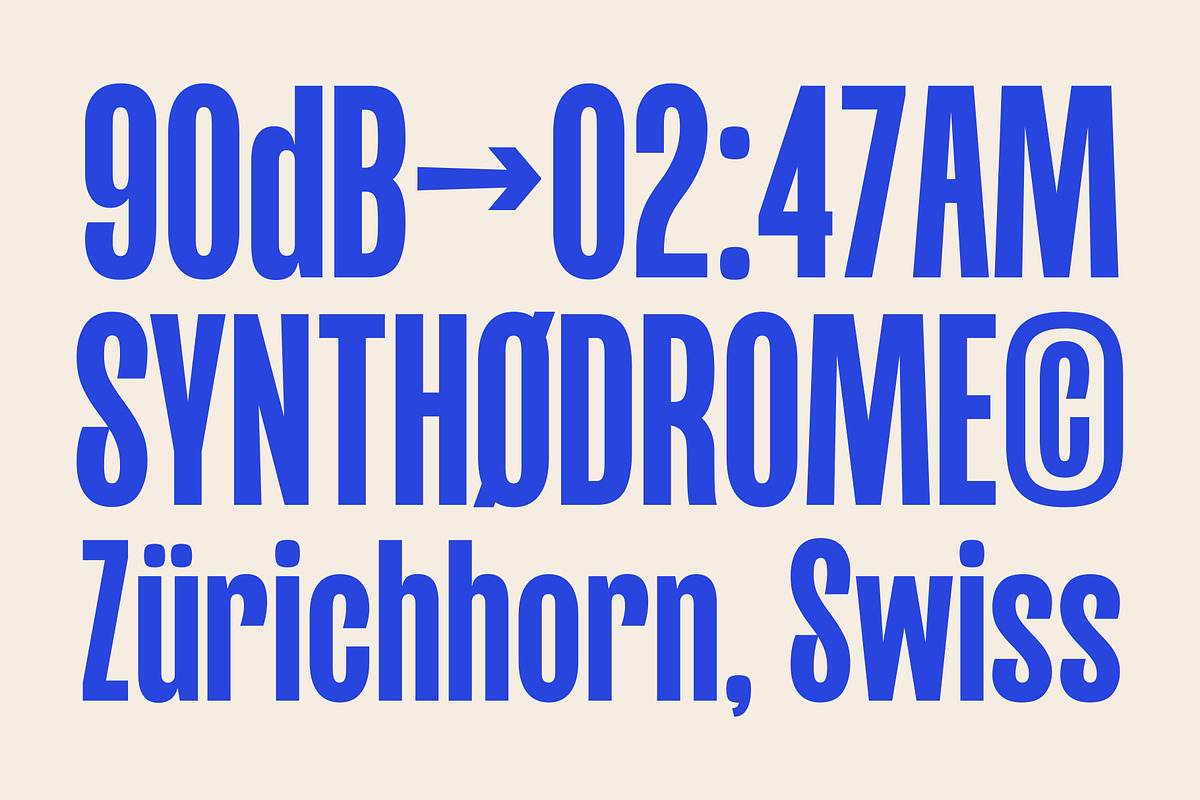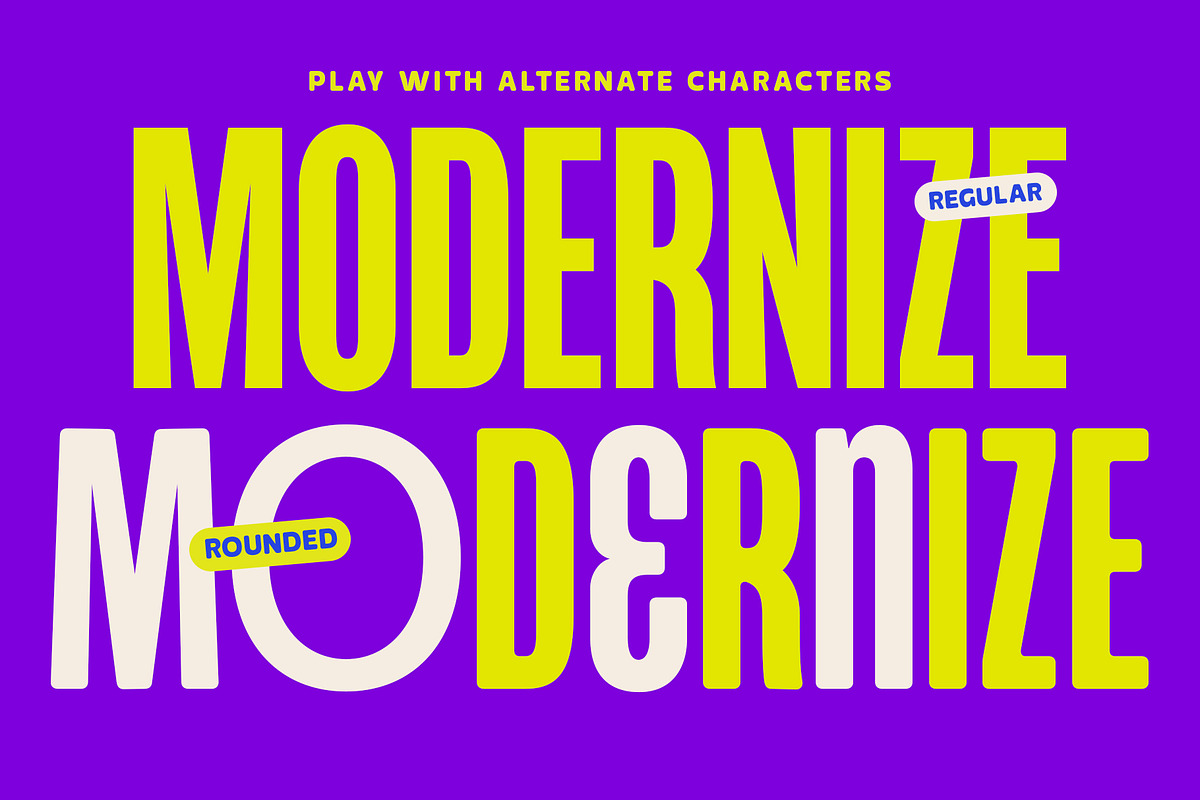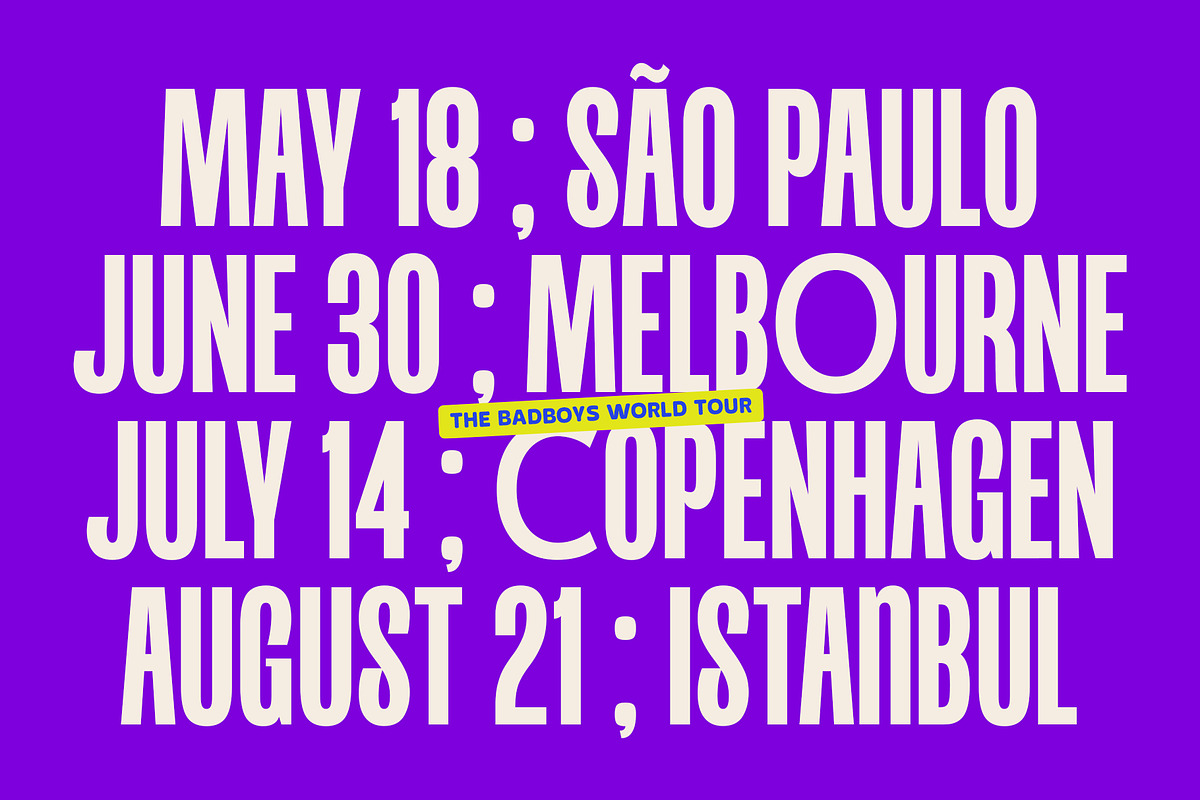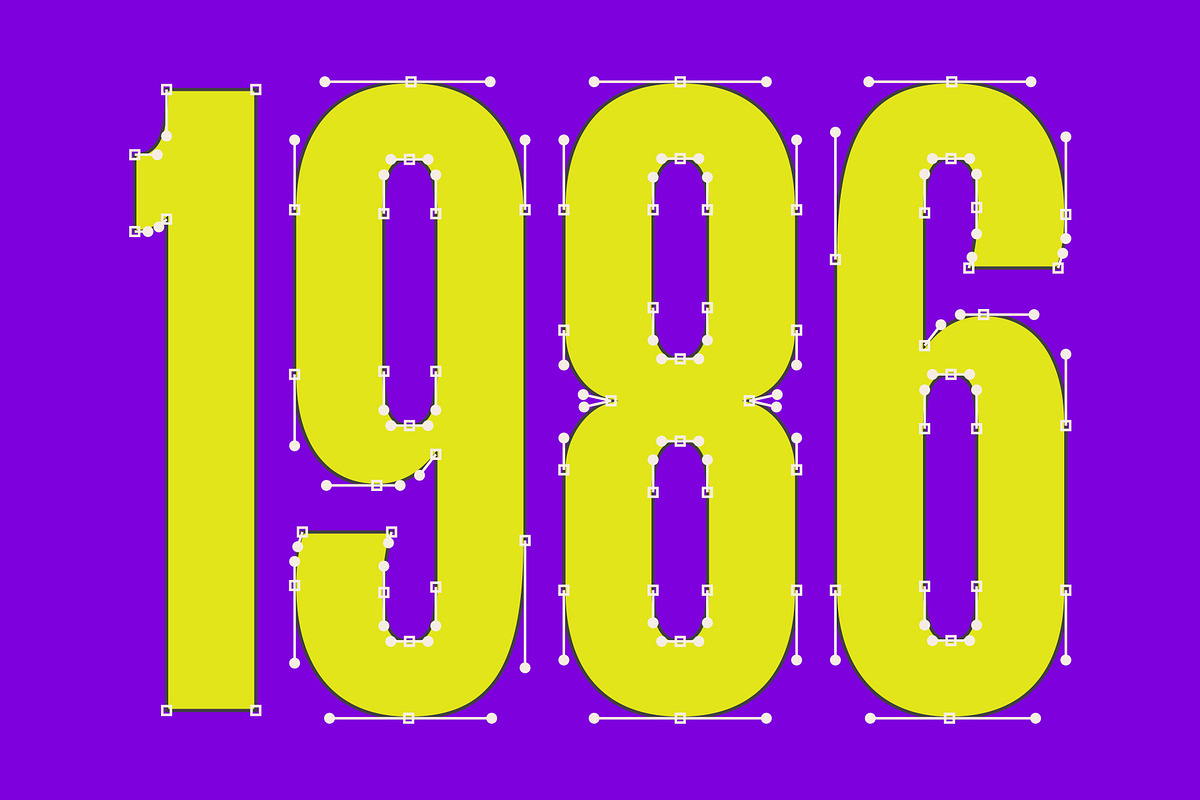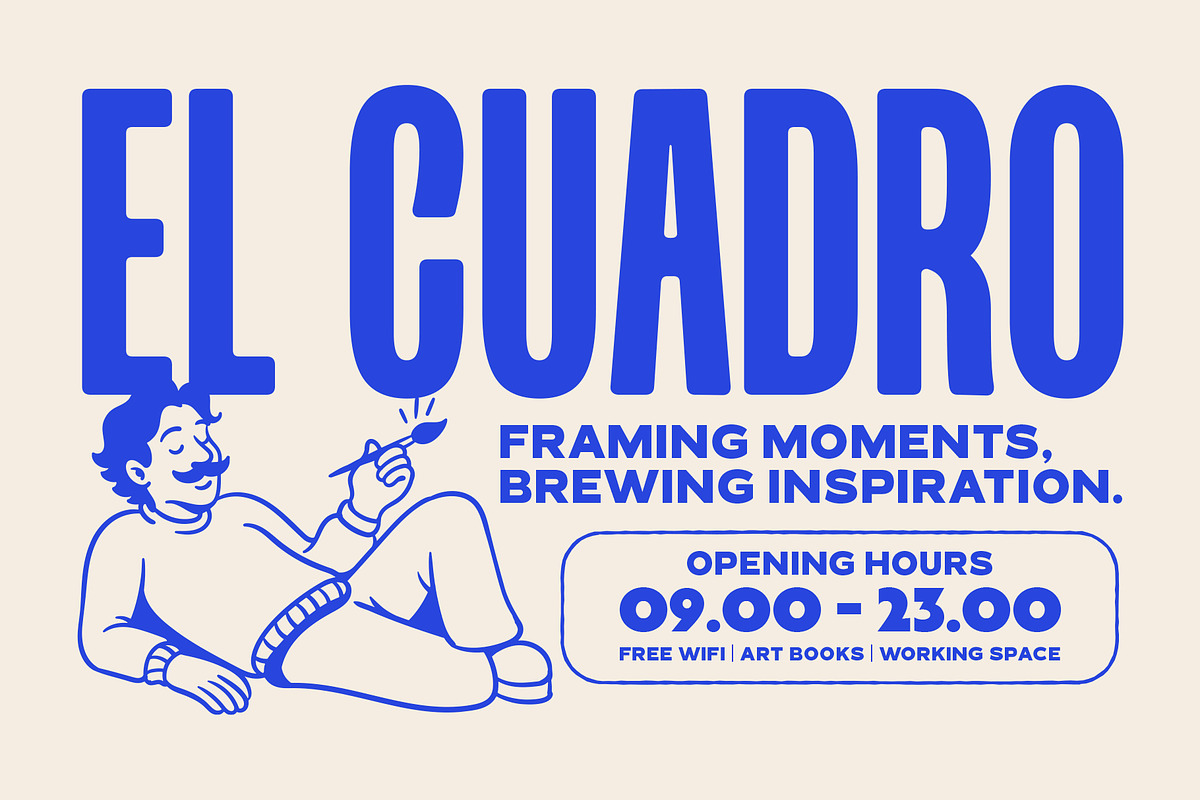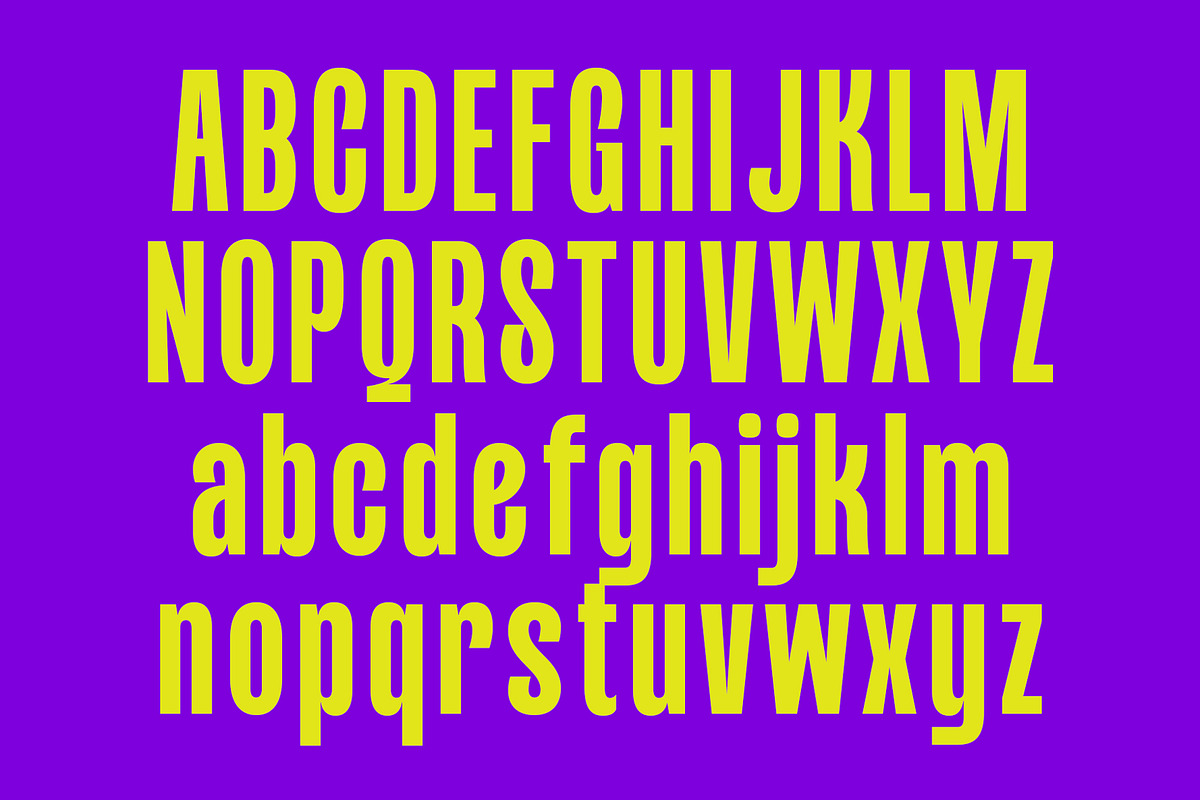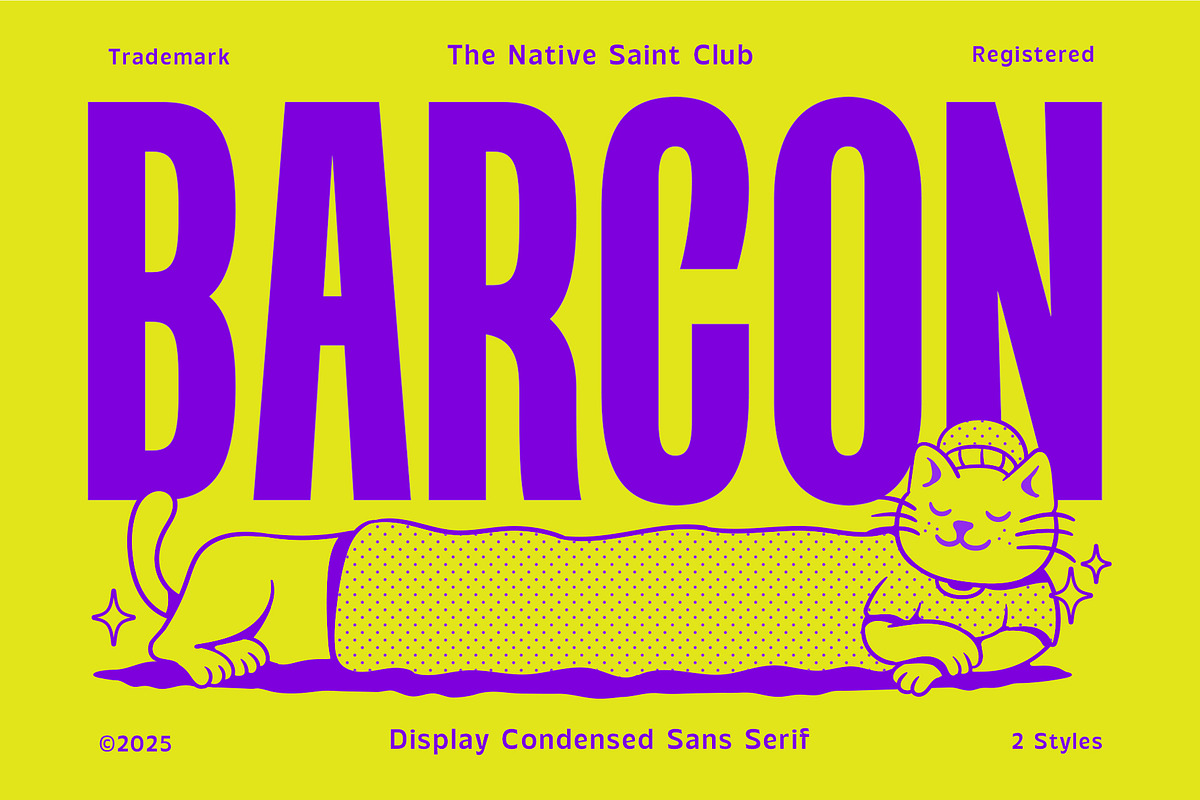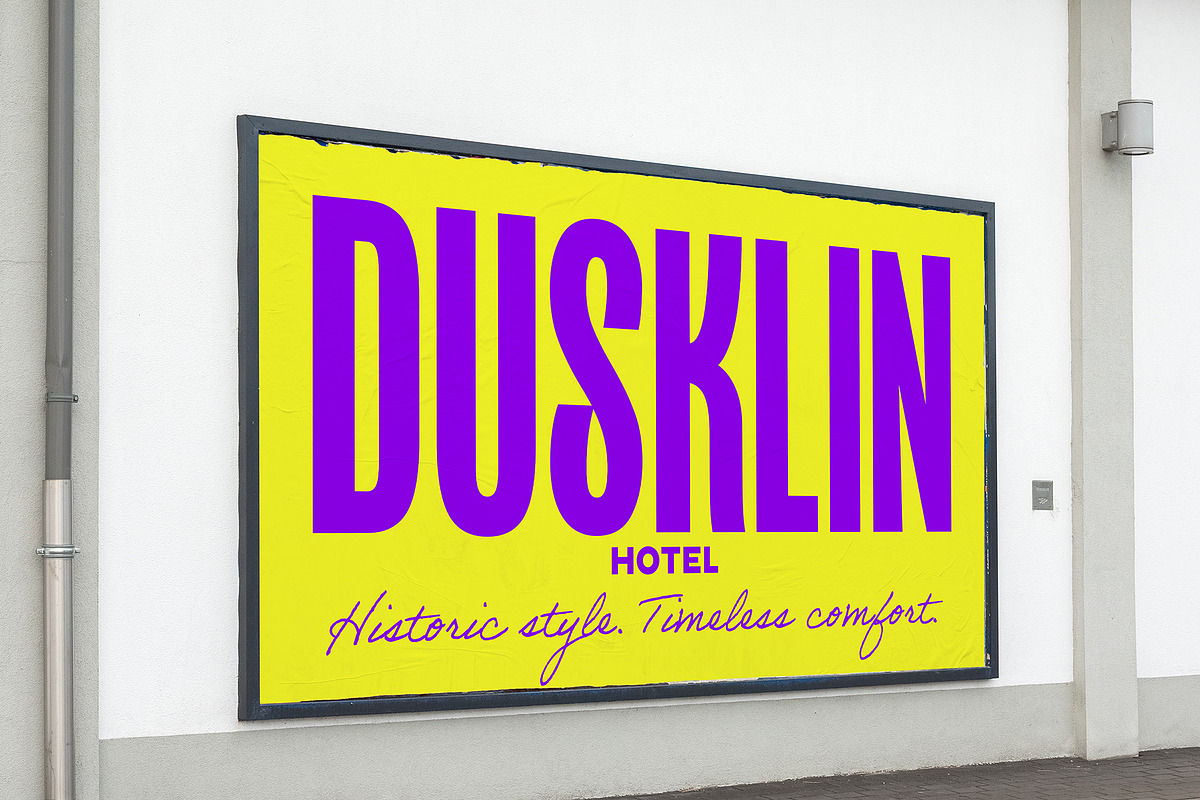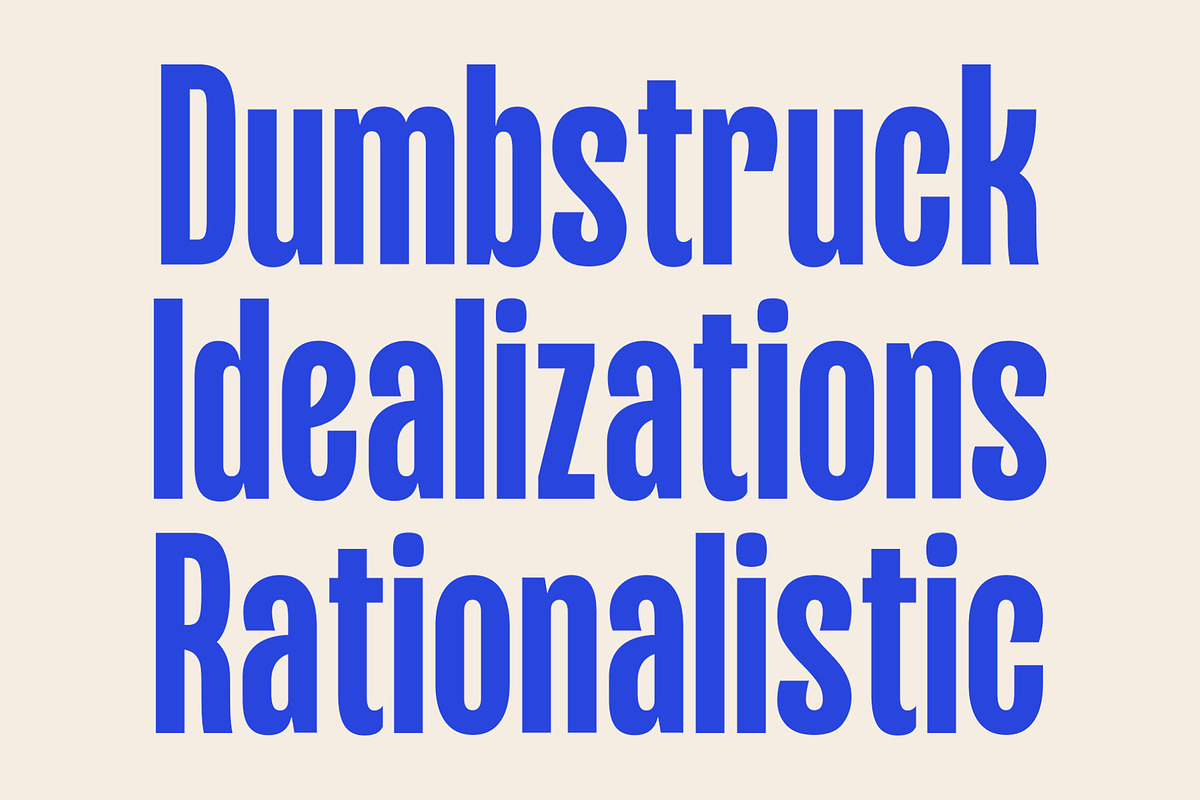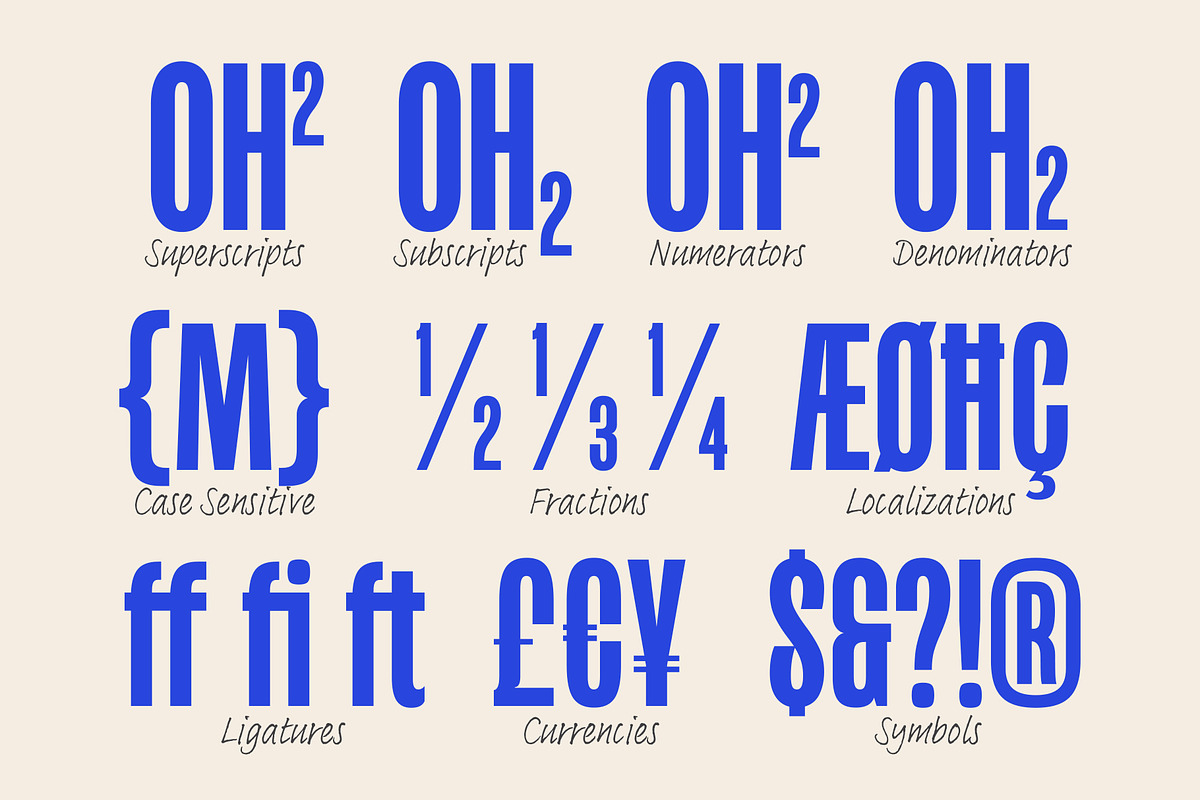
TNSC Barcon - Condensed Sans
TNSC Barcon – A Sleek, Modern Condensed Sans Serif
A sharp and stylish condensed sans serif font, crafted with clean lines and a modern minimalist touch. Its narrow width makes it ideal for bold headlines, standout titles, and sleek, space-saving layouts. Available in two styles Regular and Rounded. It also includes multilingual support, making it a versatile choice for a wide range of creative projects.